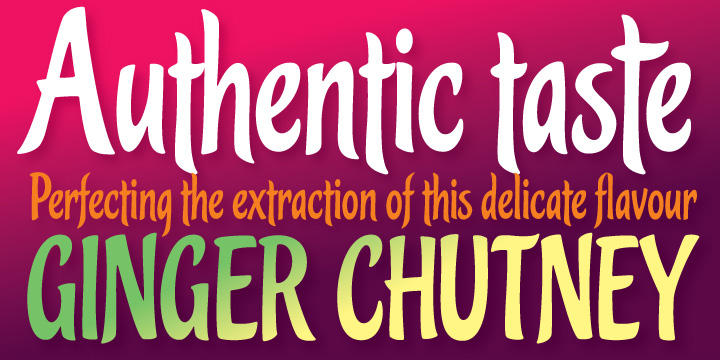
First seen on MyFonts: June 23rd, 2009 PinguinoAngel Koziupa’s familiar brush goes upright and narrow with Pinguino. Koziupa’s approach to condensed brush fonts makes use of the same elements that have always distinguished his calligraphy from any other. With Pinguino, however, we see him softening his corners and adding a distinctly feminine touch to his exotic brush. Pinguino would feel at home on sobering coffee packaging just as it would on a bouncy mixed-fruit juice bottle. Try Pinguino for your next packaging project, and tell your client an Angel told you to use it. Not quite what you’re looking for? Try looking at more fonts like this. |